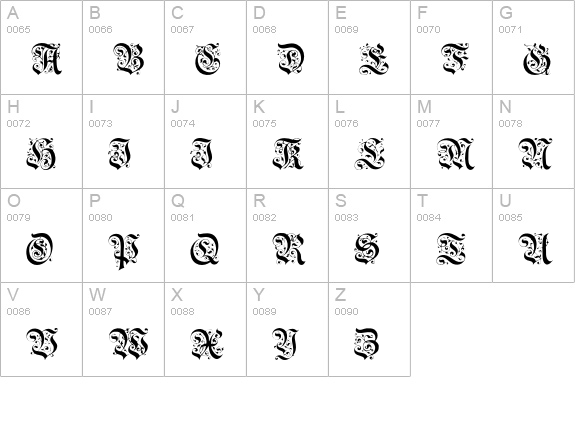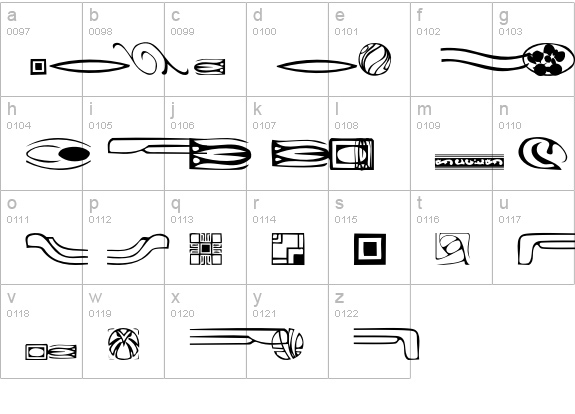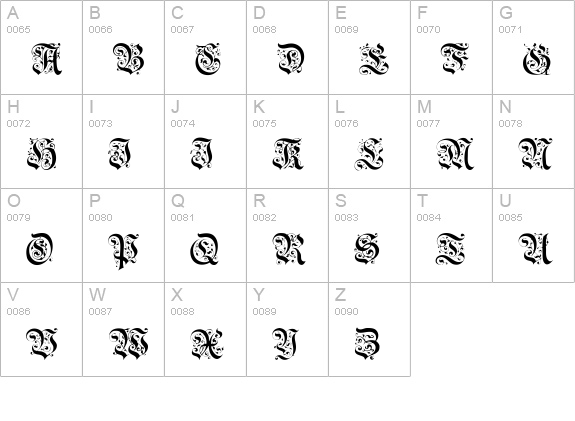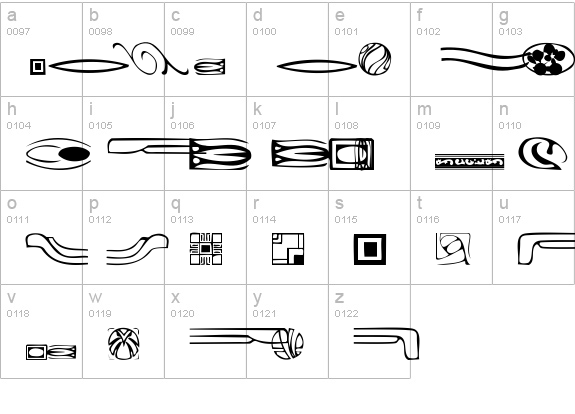
GriffinDingbats Font Details
GriffinDingbats font is a whimsical and versatile typeface that is perfect for adding a touch of fun and creativity to your projects. With a unique collection of decorative symbols and icons, GriffinDingbats font offers endless possibilities for enhancing your designs. Whether you are working on invitations, posters, or social media graphics, this font will surely make your work stand out. What makes GriffinDingbats font even more appealing is that it is available for free download at FontsMarket.com. That's right, you can easily access this charming font and start using it in your projects without any cost. So why wait? Add a playful and unique twist to your designs with GriffinDingbats font today!